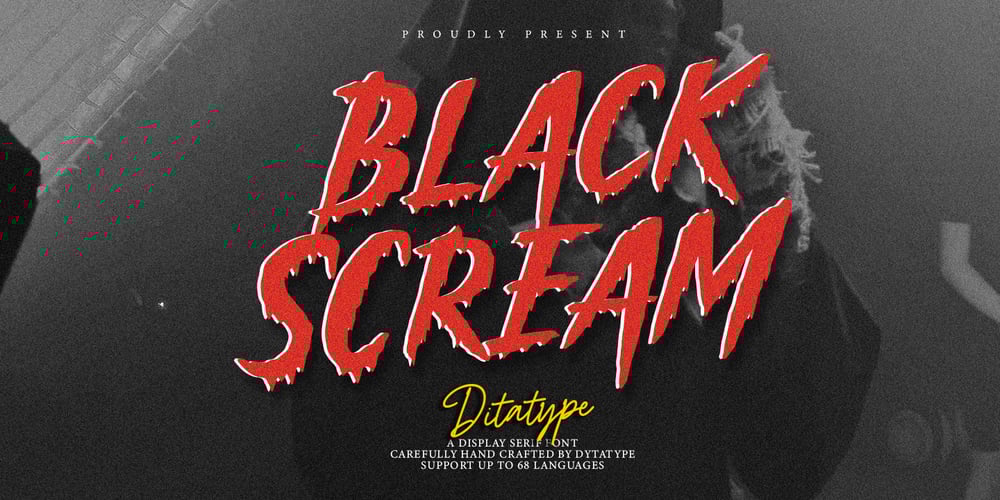
Black Scream Font Family was designed by Donis Miftahudin and published by Ditatype. Black Scream contains 1 styles and family package options. Black Scream is a spine-chilling serif display font designed to send shivers down your spine. Set in uppercase, each letter is meticulously crafted with a haunting ink dripping effect, adding an eerie and nightmarish vibe to your horror-themed designs. The letters of this font exude an unsettling aura, as if they were dipped in darkness and let ink slowly bleed down the page. The ink dripping effect adds a touch of realism and dread to the font, as if it were forged from the depths of a chilling nightmare. On the other side, the serif details of Black Scream add a sense of elegance to the font, contrasting with its nightmarish appearance. The fine lines and precise curves create a mesmerizing yet unsettling effect, making it a unique and captivating choice for horror-themed designs. For the best legibility you can use this font in the bigger text sizes. Enjoy the available features here.Features: Multilingual Supports PUA Encoded Numerals and Punctuations Black Scream fits in headlines, logos, horror movie posters, haunted house flyers, Halloween party invitations, any spine-tingling project, branding materials, print media, editorial layouts, website headers, and many more. Find out more ways to use this font by taking a look at the font preview.Thanks for purchasing our fonts. Hopefully, you have a great time using our font. Feel free to contact us anytime for further information or when you have trouble with the font. Thanks a lot and happy designing.